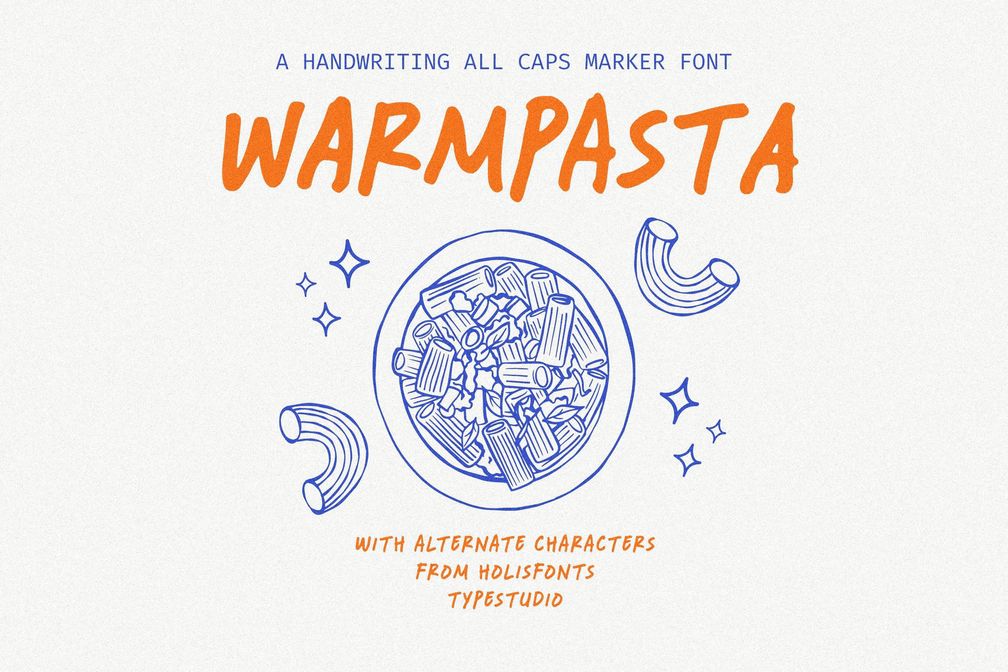
Warm Pasta Playful All Caps Marker
Bring a burst of friendly energy to your designs with Warm Pasta, a bold, playful, and highly expressive all-caps marker font. Handcrafted with organic brush strokes, this typeface is perfect for creative designs that demand a personal, human touch.
• Authentic Hand-Drawn Vibe: Crafted using real markers for a realistic, textured outline.
• All Caps with Alternates: Features a full set of uppercase characters plus distinct alternates to keep your layouts looking custom.
• Multilingual Support: Ready for global branding with accents and special characters.
• Full Character Set: Includes numbers, punctuation, and financial symbols.
Perfect for:
Ideal for kids’ branding, comic books, poster designs, quirky social media graphics, food packaging, merchandise, t-shirts, and bold logotypes. Compatible with any design software including Photoshop, Illustrator, Canva, and Procreate.